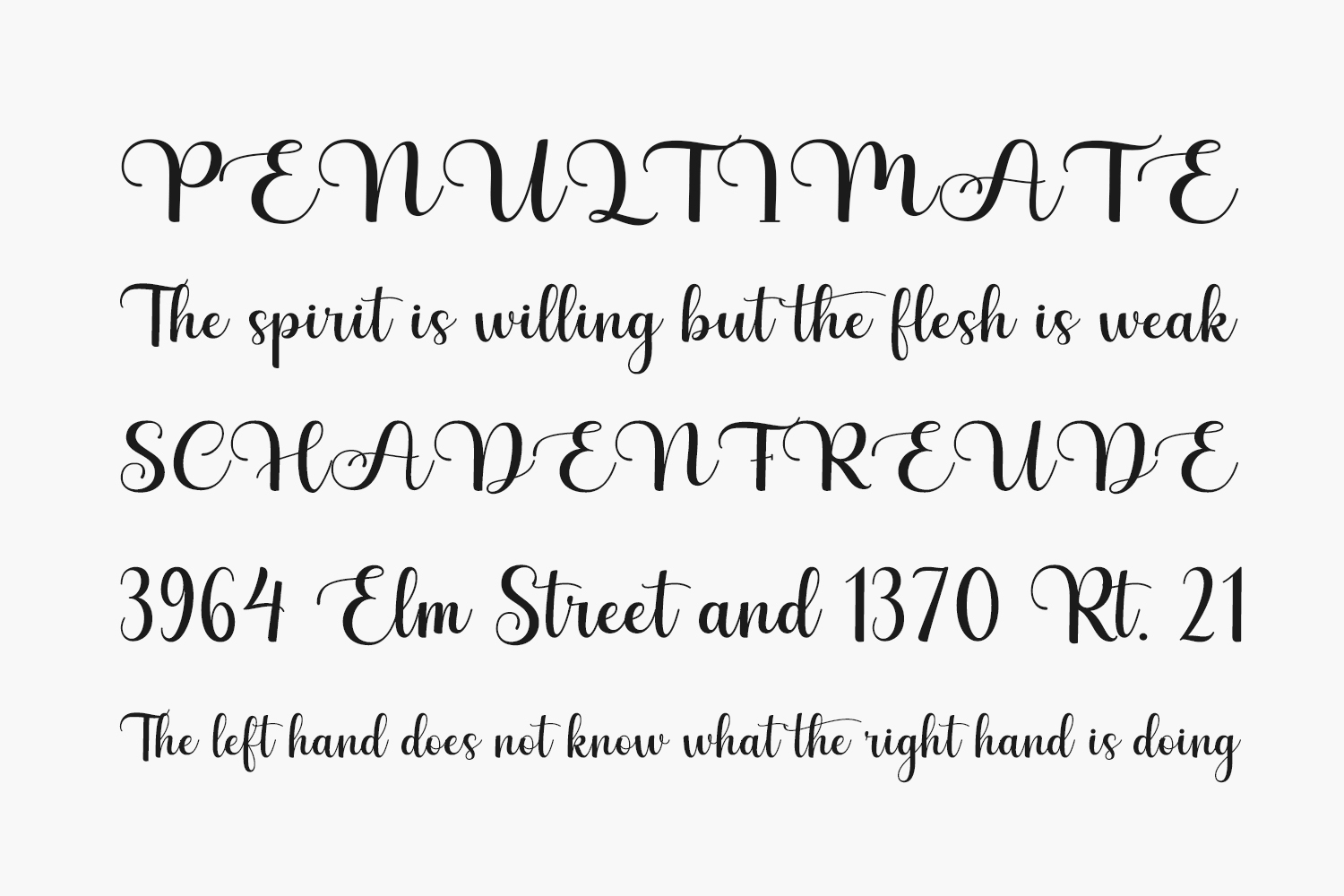
Baby Catherina Free Font is a graceful, handwritten font with a touch of elegance. Its unique and timeless style will make it a favorite for your design projects. Let its beauty enhance your creations and bring a touch of sophistication to your work.
Designed by Fadlilah Studio